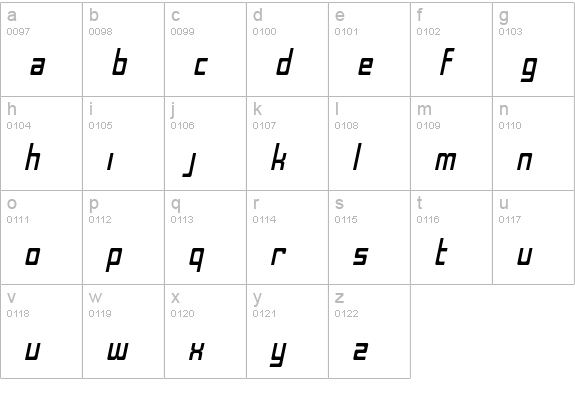
SF Laundromatic Condensed Oblique Font Details
SF Laundromatic Condensed Oblique is a distinctive, condensed-width, italic variant in the SF typeface family \xE2\x80\x94 well suited to design and typography projects.
SF Laundromatic Condensed Oblique is a stunning font that effortlessly blends contemporary design with a touch of retro charm. Its condensed form, combined with the oblique slant, creates a sleek and dynamic appearance that is perfect for adding a modern twist to your designs. This font is not only visually appealing but also highly versatile. Whether you're designing a logo, a website, or a poster, SF Laundromatic Condensed Oblique will add a unique and eye-catching element to your project. Its bold and sharp letterforms make a strong statement, while the slightly slanted angle adds a sense of energy and movement. One of the best features of SF Laundromatic Condensed Oblique is that it is freely available to download at FontsMarket.com. This means that you can access this incredible font without any cost, making it an ideal choice for both personal and commercial projects. With its widespread availability, you can easily incorporate SF Laundromatic Condensed Oblique into your designs without any limitations. Whether you're a professional designer or a hobbyist, SF Laundromatic Condensed Oblique is a font that will elevate your work to a whole new level. Its sleek and modern aesthetic, combined with its oblique slant, creates a font that is both captivating and engaging. So why wait? Download SF Laundromatic Condensed Oblique for free at FontsMarket.com and let your creativity soar.